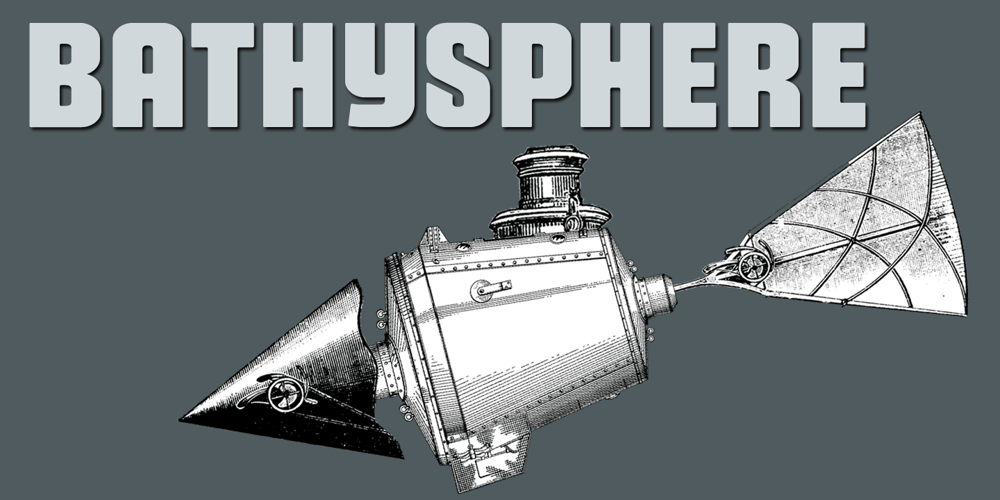
Bathysphere Font Family was designed by Gustav F. Schroeder, Morris Fuller Benton, Seymour Caprice and published by Kickingbird. Bathysphere contains 1 styles and family package options. This steam era typeface, created by Gustav Schroeder in 1884, found popular use on soap box labels and tobacco tins during its initial release. Then, later, a successful and stout revival of Gustav’s face, named Othello, was carried out by Morris Fuller Benton in 1934, and the typeface’s appeal widened to include items such as broadside posters featuring Boris Karloff’s Frankenstein. After metal gave way to film type, Gustav’s creation experienced a brief fashion moment in the 1960’s, but then disappeared entirely, never re-surfacing as a full digital typeface. With the release of Bathysphere, the typeface comes full circle, having been completely redrawn from scratch using Gustav’s original specimens. The new extended language support establishes the typeface firmly in the modern era, while Bathysphere’s refinement of subtle blunt corners restores a deep-sea grace to this iron giant.